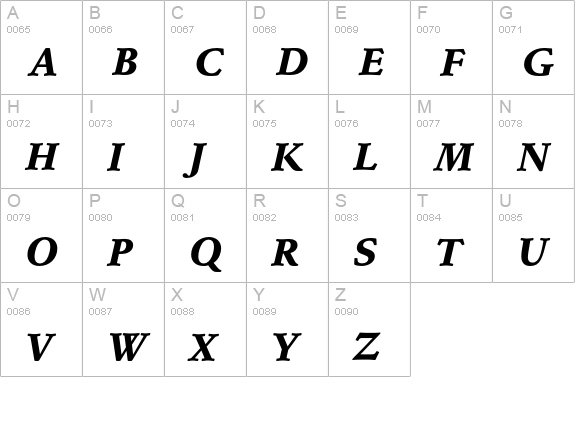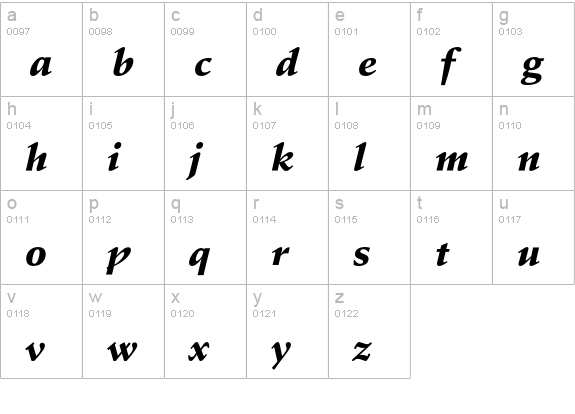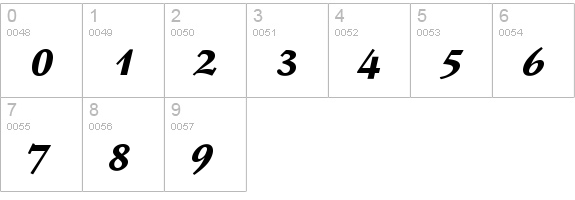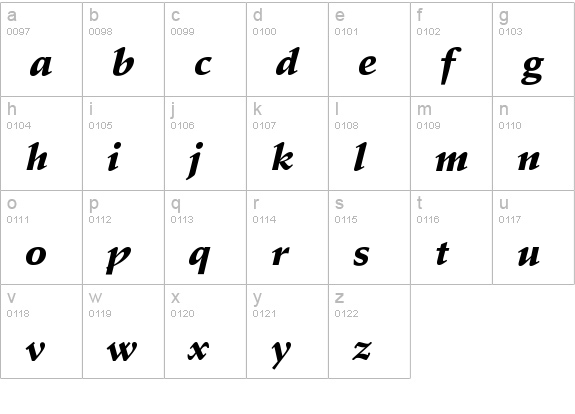
SchneidlerEF-BlackItalic Font Details
SchneidlerEF-BlackItalic is a striking and elegant font that effortlessly captures attention with its bold and slanted design. Its sleek and sophisticated appearance makes it perfect for conveying a sense of power and authority in any design project. The SchneidlerEF-BlackItalic font features strong, confident letterforms that exude a sense of professionalism and class. Its sharp edges and distinctive curves create a unique visual impact, making it a standout choice for headlines, titles, and logos. This font's versatility is further enhanced by its ability to convey both traditional and contemporary aesthetics. Its classic design elements are combined with a modern twist, resulting in a font that effortlessly blends tradition and innovation. One of the most appealing aspects of the SchneidlerEF-BlackItalic font is that it is freely available to download at FontsMarket.com. This means that designers and creatives can easily access this stunning typeface without any financial constraints. Whether you're working on a branding project, a magazine layout, or a website design, the SchneidlerEF-BlackItalic font is sure to make a lasting impression. Its bold and italicized style adds a touch of drama and elegance to any composition, making it a truly versatile and impactful choice for all your design needs. With its striking appearance and the convenience of being freely available, the SchneidlerEF-BlackItalic font is a must-have for designers seeking to elevate their projects to new heights of sophistication and visual appeal.